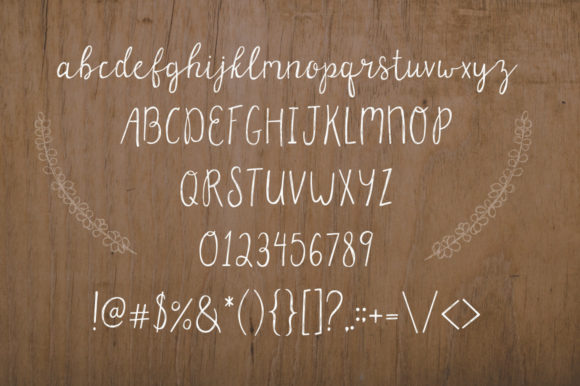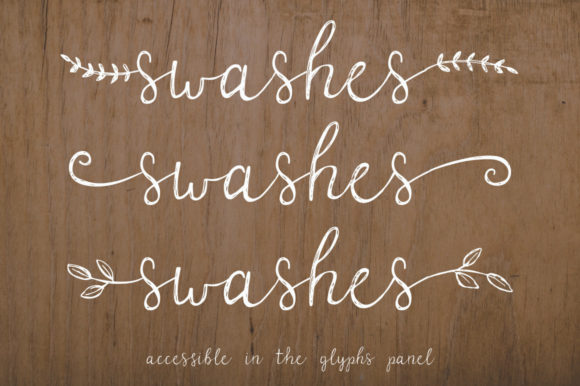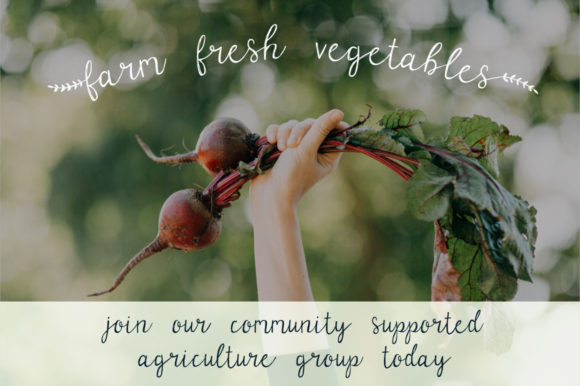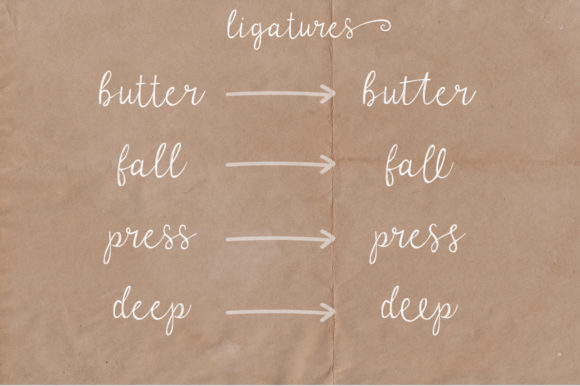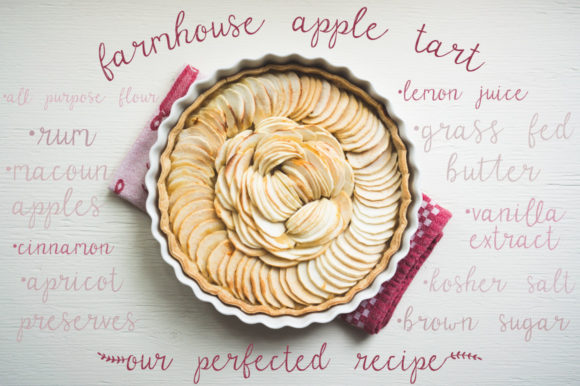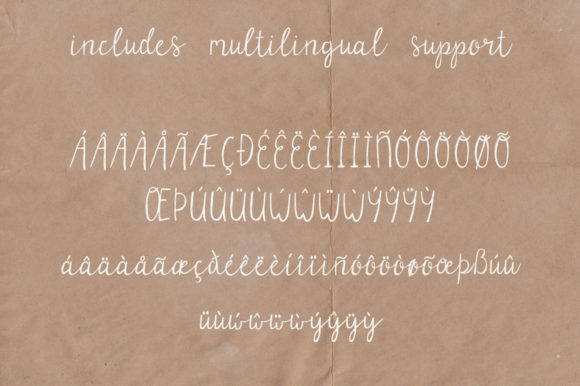
Introduction to Parsnips Font
As you sit down to design a new project, surrounded by half-finished sketches and scattered notes, you finally feel the spark of inspiration. It’s the perfect moment to bring your vision to life with a unique and captivating font. For those seeking a design resource that exudes warmth and character, the Parsnips Font is the perfect companion.
This sweet and rustic script font is not just a pretty face; it’s a reflection of the love and care that goes into every aspect of your creative project. With its leafy swashes and organic feel, Parsnips Font is inspired by the simple joys of life – warm root vegetables, sunshine, and homemade meals. Whether you’re working on a magazine, home decor, or wedding invite, this high-quality font is sure to elevate your design and make it stand out.
Parsnips Font
- Includes a range of glyphs, making it suitable for various languages and scripts.
- Designed with a modern aesthetic, making it ideal for contemporary design projects.